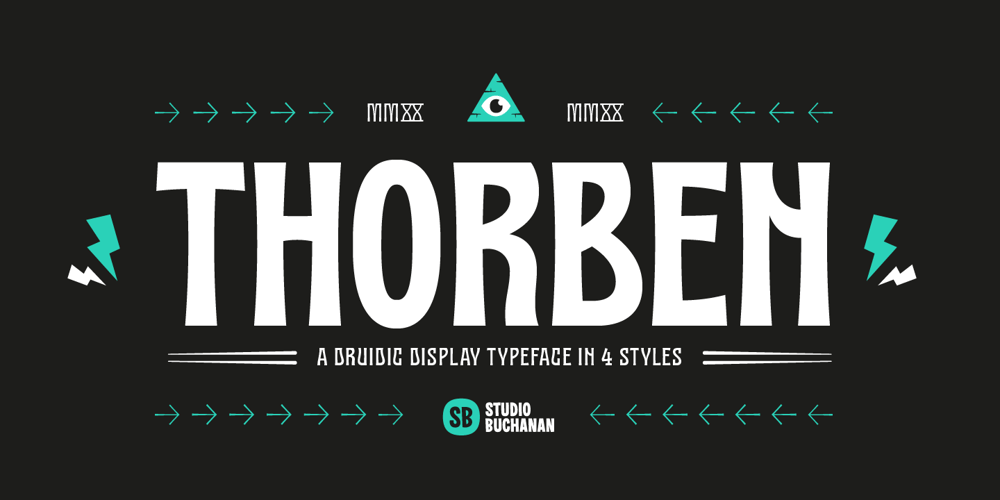
Thorben
Thorben font
Thorben Font Family was designed by Jonathan Gibson and published by Studio Buchanan. Thorben contains 4 styles and family package options. The old Norse legend of Thorben Odinson is a cautionary tale. And this typeface, like the nebulous kingdom he ruled, is something of a cloudy concoction. Thorben the typeface is something of an inspiration-hybrid, pulling aspects from multiple sources and combining them into a typeface that strangely seems to work (or not – depending on your point of view).What started as a redrawing of some old carvings (on a castle wall in deepest, darkest Suffolk), is now something entirely different. Part Nouveau curves and Celtic script, topped with a few sprinkles of modernism, darkness and some quirky ideas – Thorben absorbs it all, creating a display face that feels antiquated and current at the same time. Each style also comes pre-loaded with a handful of pictograms and icons perfect for adorning your designs with extra Thorben-ness.